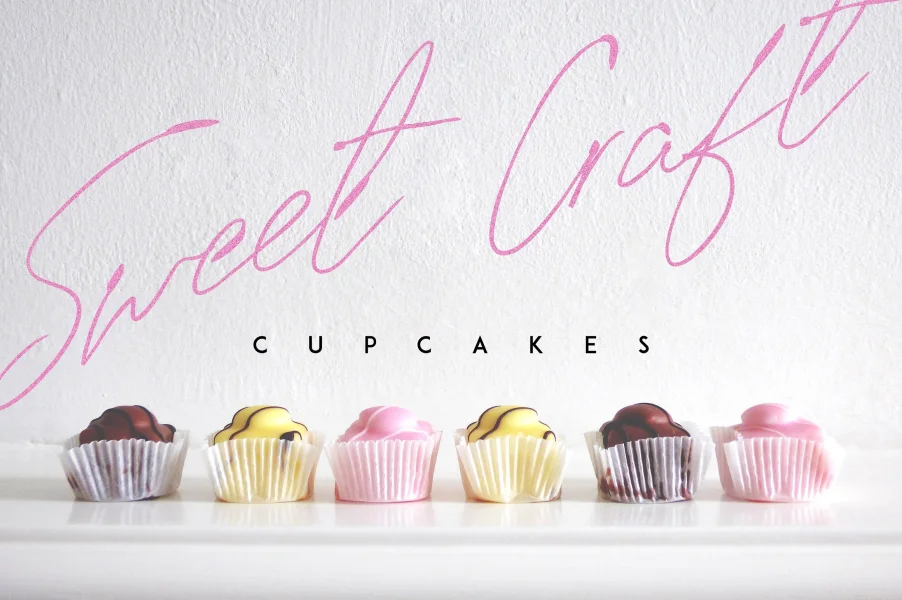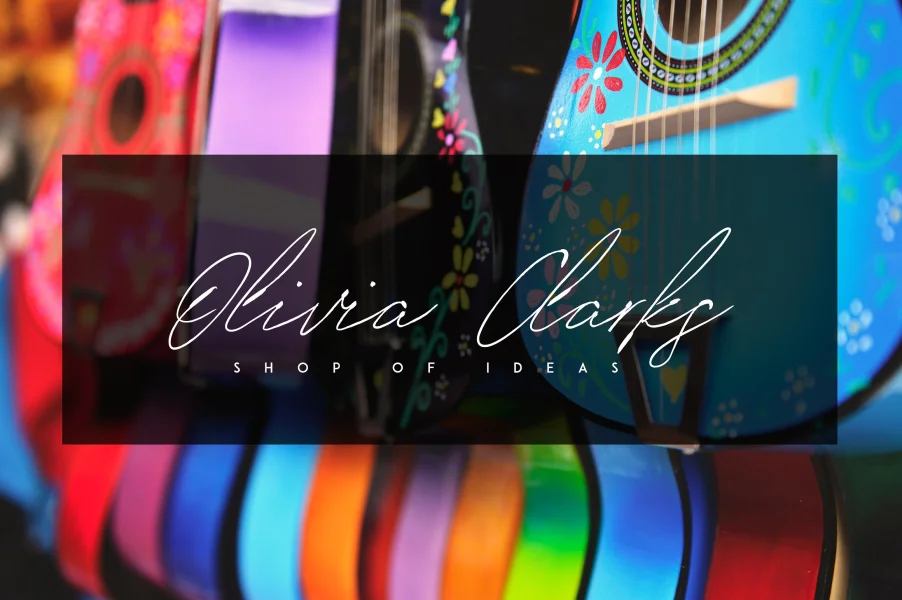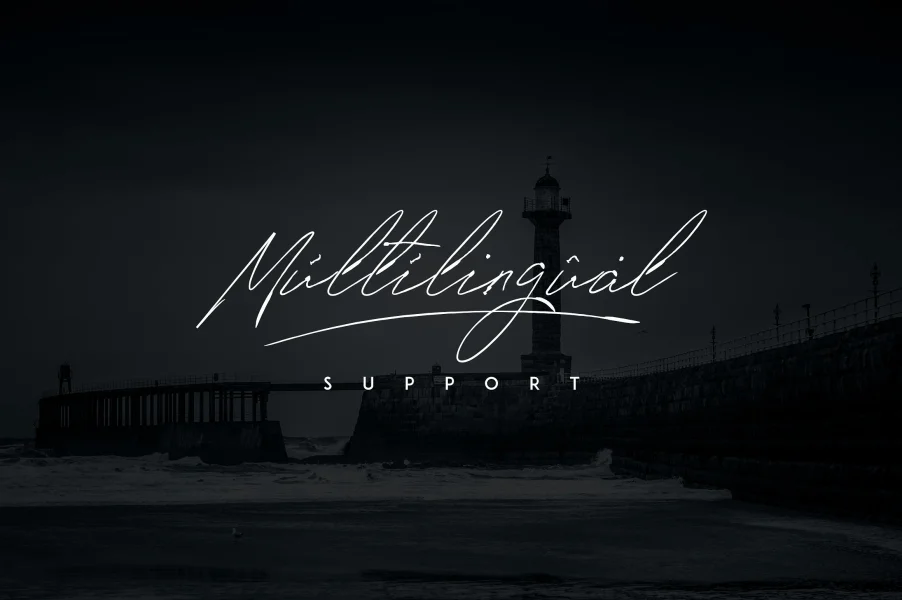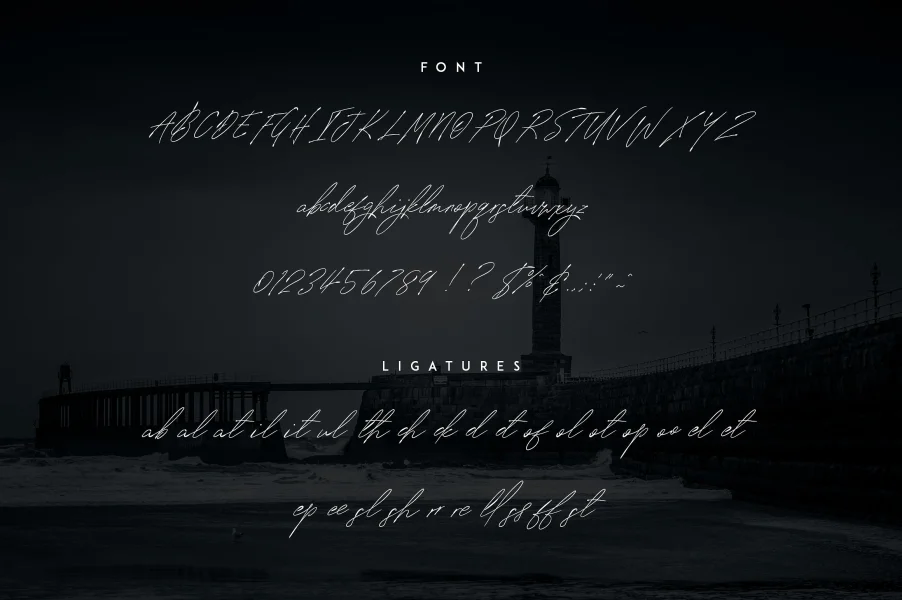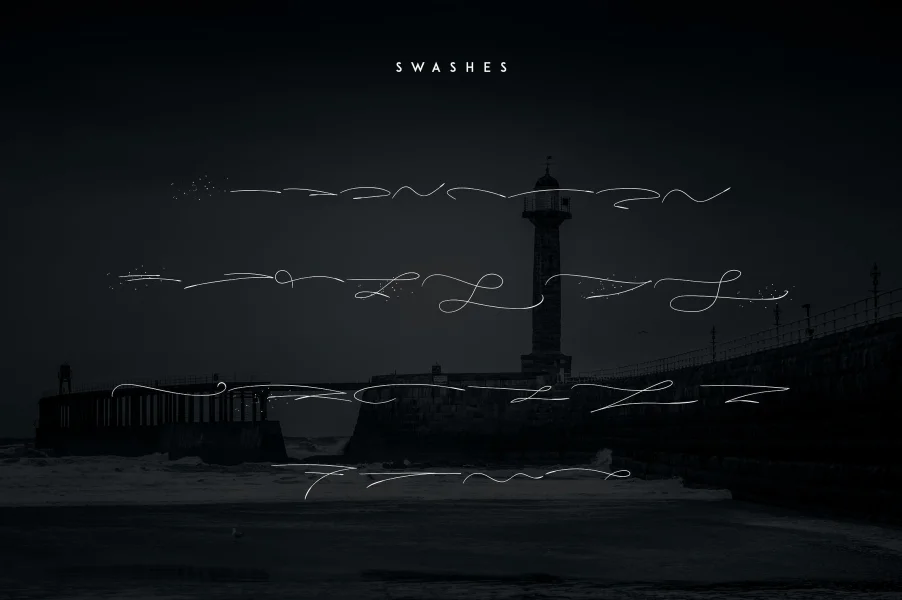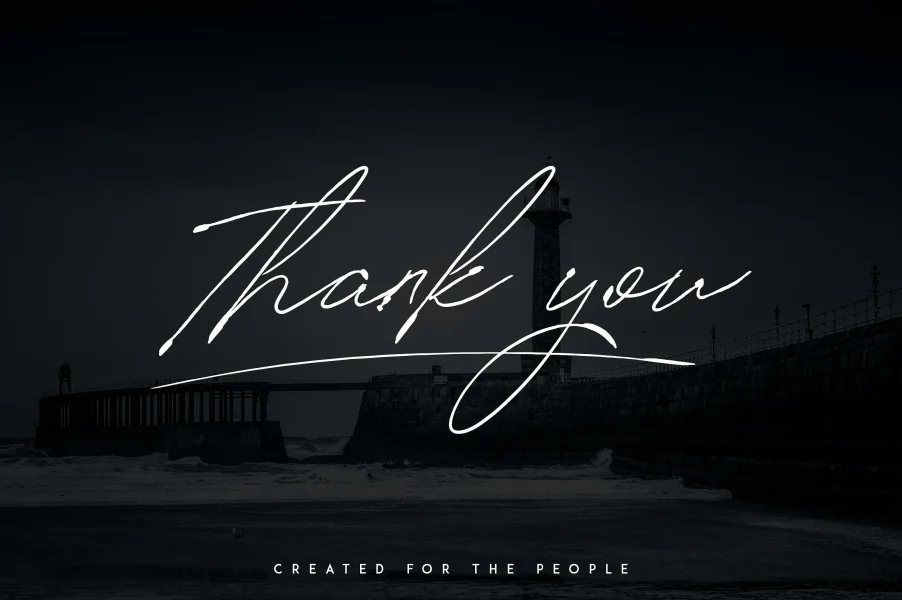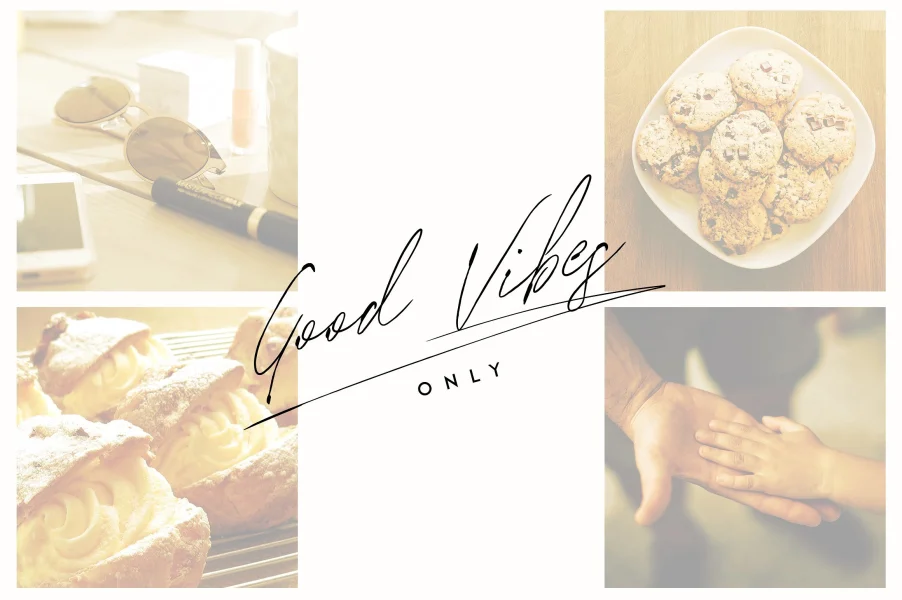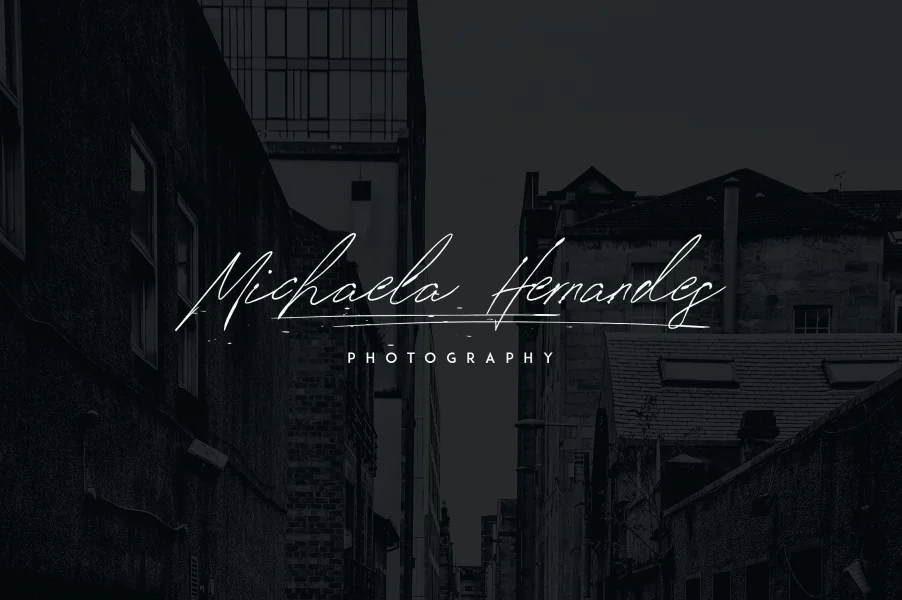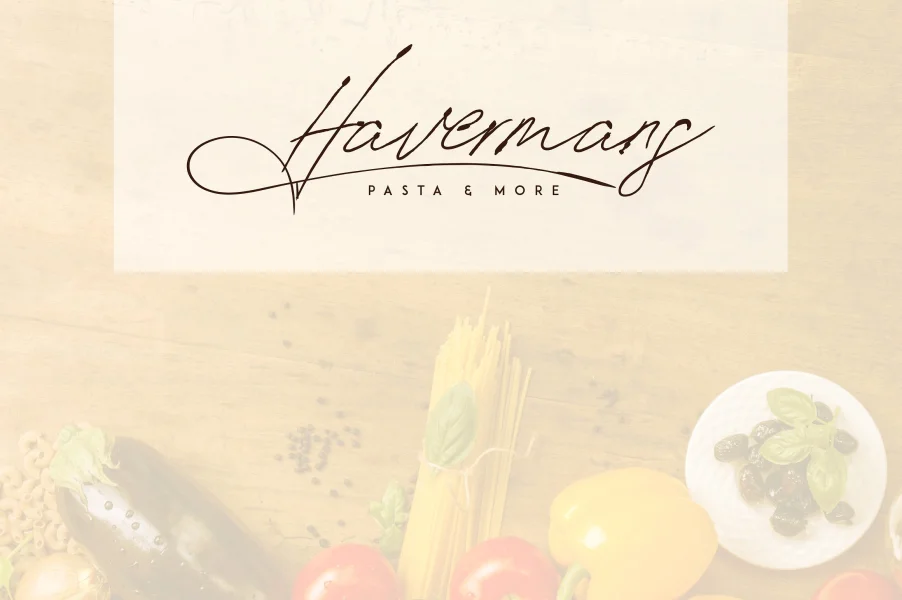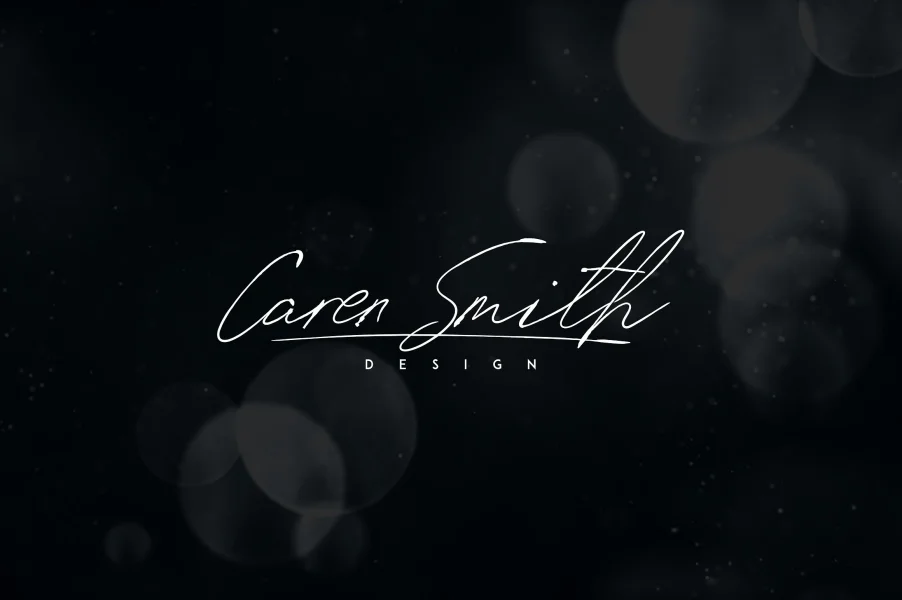
Signature VP is elegant, ink font with 26 swashes and multilingual support. It's a very versatile font that works great in large and small sizes.
Signature VP is perfect for branding projects, home-ware designs, product packaging, magazine headers - or simply as a stylish text overlay to any background image.